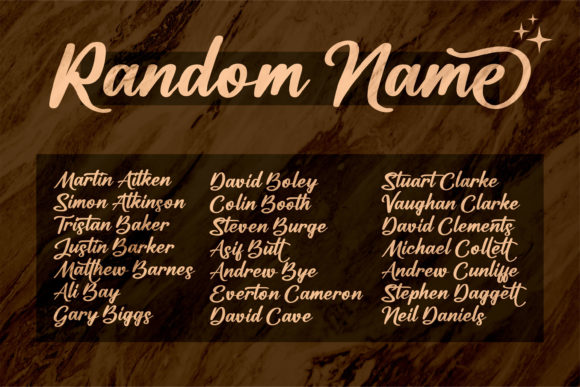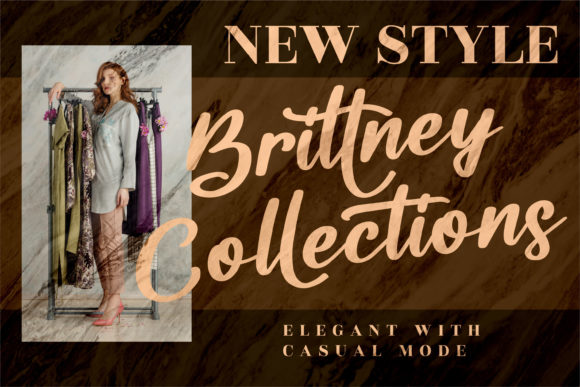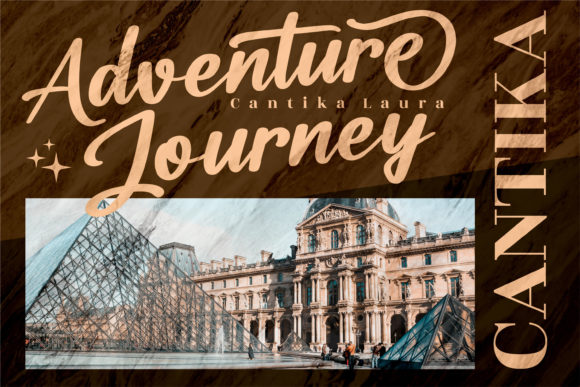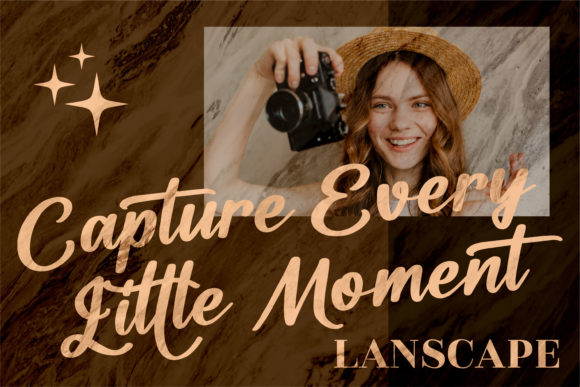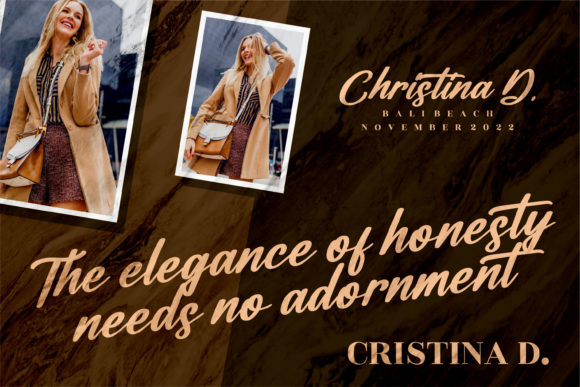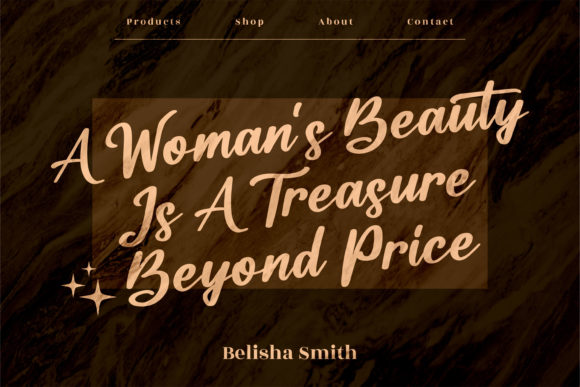
Discover the Timeless Elegance of Catalish Huntera Font
As a designer, have you ever stumbled upon a font that perfectly captures the essence of your creative vision? For me, it was the moment I laid eyes on Catalish Huntera Font – a stunning script font that exudes refinement and sophistication. Its elegant curves and modern flair make it an instant favorite for creating logos, branding, and invitations that leave a lasting impression.
Whether you’re working on a high-end wedding design or crafting social media posts that demand attention, Catalish Huntera Font is the perfect tool to elevate your designs. With its PUA encoding, accessing the beautiful glyphs and swashes is a breeze, allowing you to unlock the full potential of this versatile font.
- Font Family: Catalish Huntera Font is a unique, high-quality font family designed to cater to various design needs.
- Size: The font family includes various weights and styles, ranging from 8-point to 72-point sizes, making it suitable for a wide range of applications.
- Resolution: Optimized for high-resolution displays, with a minimum resolution of 300 DPI, ensuring crisp and clear typography.
- Unique Characteristics: The font features distinctive, hand-crafted letterforms with a mix of modern and traditional elements, making it perfect for creative projects.
Catalish Huntera Font Review
First impressions count, and the Catalish Huntera Font has certainly caught my eye. I love how it combines the elegance of serif fonts with the modern feel of sans-serif typography. The result is a truly unique and eye-catching look that’s perfect for making a statement. ✨ The font’s fluid curves and dynamic lines make it a joy to read, and the subtle flair at the ends of the letters adds a touch of sophistication. ✨ The font also comes in a range of weights, from light to bold, which gives designers plenty of options for creating different moods and atmospheres.
However, I do have a few reservations about the Catalish Huntera Font. ⚠️ One of the main issues is its limited language support. While it’s great for English and other Latin-based languages, it may not be the best choice for languages that require more complex typography, such as Chinese or Japanese. ⚠️ Additionally, the font’s irregularities can sometimes make it difficult to read at small sizes or in situations where legibility is crucial.
Despite its limitations, I think the Catalish Huntera Font is a fantastic choice for designers looking to add some visual interest to their projects. Its unique blend of elegance and modernity makes it perfect for branding, advertising, and editorial design. With a bit of creative problem-solving, I’m confident that designers can work around the font’s limitations and create some truly amazing work.
Design Considerations
- Use for branding, advertising, and editorial design
- Choose the right weight to suit the mood and atmosphere of the project
- Be mindful of language support and potential legibility issues at small sizes
Tips for Getting the Most Out of Catalish Huntera Font
Use Catalish Huntera Font in bold or italic styles to add emphasis to your text. Pair it with a simple background to let the font take center stage. Experiment with different font sizes to create a visually appealing hierarchy of information.
Catalish Huntera Font is ideal for modern branding, creative projects, and editorial designs. Use it for titles, headings, or body text to add a touch of sophistication and elegance to your design. It’s also perfect for creating eye-catching social media graphics, flyers, or brochures.